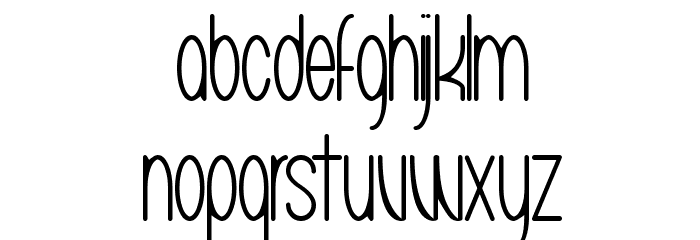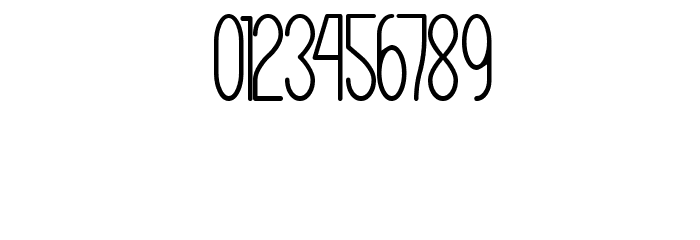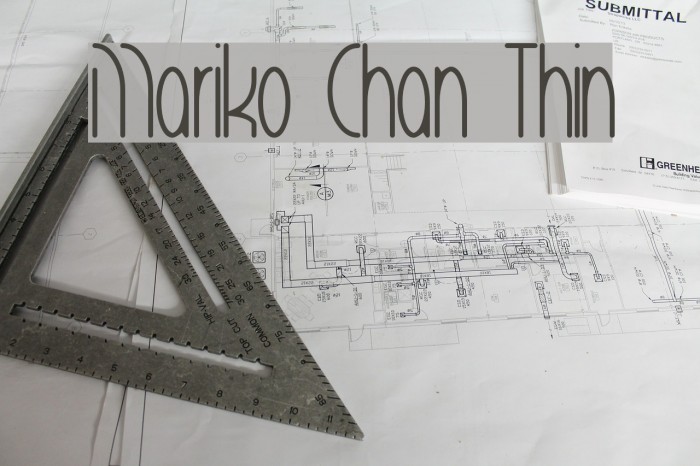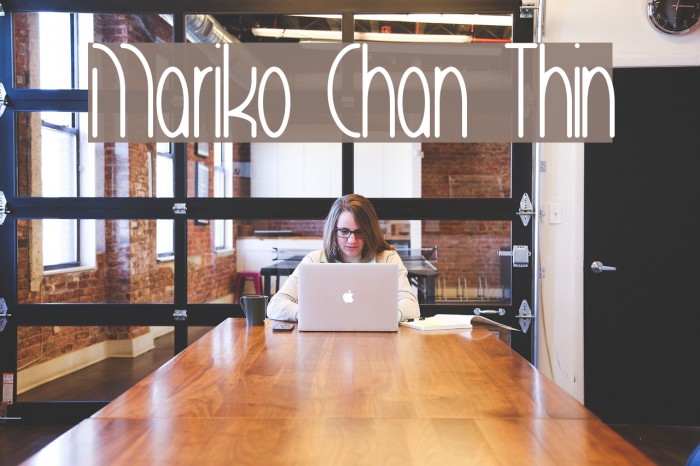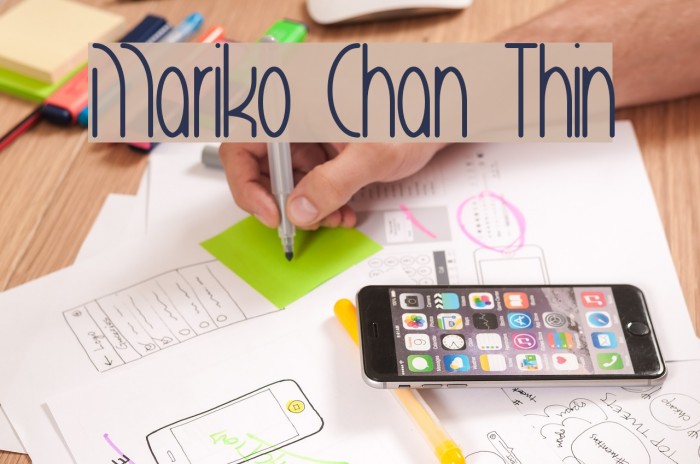
Mariko Chan Thin Font
This font features a unique and modern design with a thin, elongated structure. The characters are crafted with a rounded, geometric style that gives a sleek and contemporary appearance. The uppercase and lowercase letters maintain a consistent height, creating a harmonious and balanced look. The numerals are designed to match the overall aesthetic, ensuring uniformity across all characters. This font's clean lines and minimalistic approach make it suitable for a variety of design applications, offering a fresh and stylish option for modern typography needs.
A modern, thin, and geometric font with a sleek, elongated design.
- Proposed Projects: Ideal for branding, logos, modern web design, and minimalist print materials.